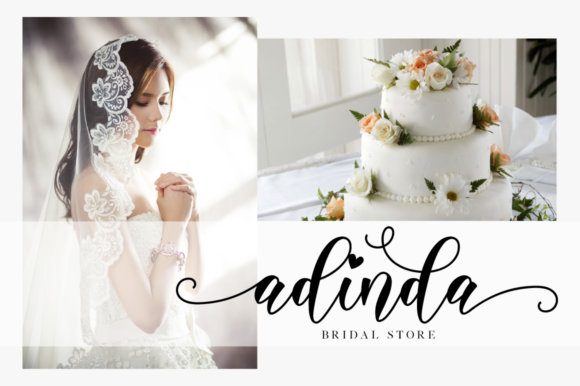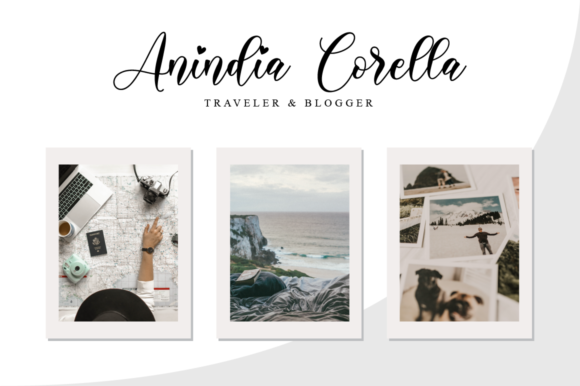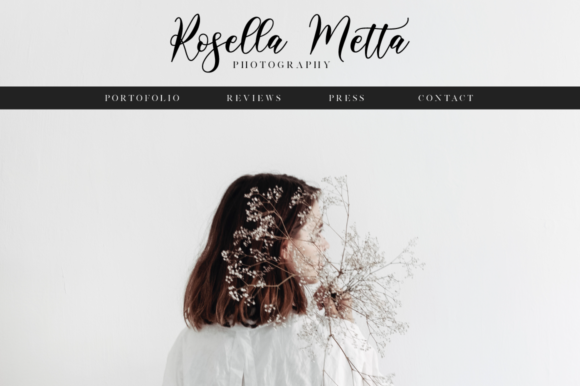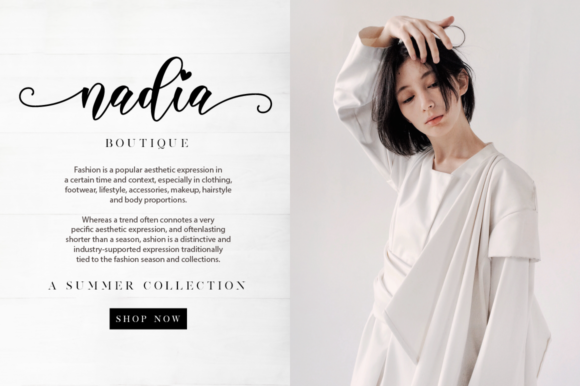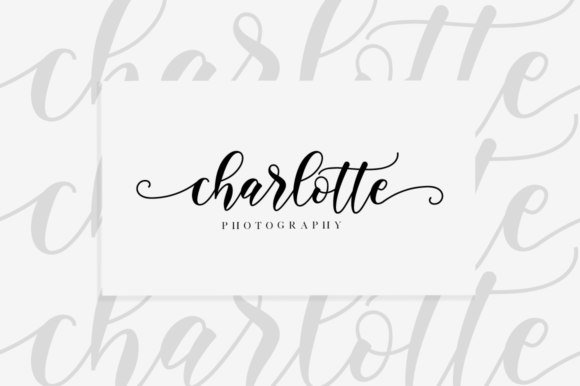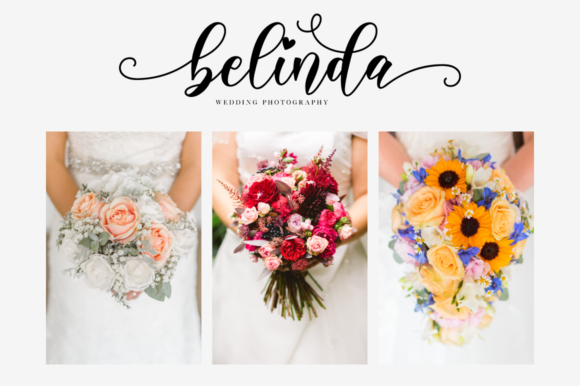
The Perfect Script for Your Next Design Project
As designers, we’ve all been there – staring at a blank canvas, struggling to find the perfect font to bring our vision to life. It’s that moment when the right font can make all the difference, elevating your design from ordinary to extraordinary. For me, that moment came when I discovered the Alyanda Script Font.
This beautiful script boasts a classy, elegant, and modern look that’s perfect for adding a touch of sophistication to any design project. Whether you’re working on a wedding invitation, a branding campaign, or a website, the Alyanda Script Font is sure to turn heads. Its authentic vibe is contagious, making it a valuable addition to any designer’s toolkit.
Alyanda Script Font Key Features
- Font Style: Handwritten, Script Font
- Unique Characteristics: Features elegant, flowing lines, and subtle flair, making it perfect for creative and artistic applications
Alyanda Script Font Review
I recently had the chance to work with the Alyanda Script font, and I have to say, it’s a real showstopper! ✨ The flowing, handwritten feel of this font is perfect for adding a touch of elegance and sophistication to your designs.
The letters in Alyanda Script are beautifully connected, creating a natural flow that makes it a joy to read. ✨ The font also includes a range of ligatures and alternate characters, which can add an extra layer of depth and interest to your typography.
While Alyanda Script is a beautiful font, it’s not without its limitations. ⚠️ Here are a few things to consider:
The font can be quite large, which may make it difficult to read at smaller sizes.
The connected nature of the letters can make it challenging to edit individual characters.
The font may not be suitable for use in digital applications where legibility is a top priority.
Overall, I’m really impressed with the Alyanda Script font. ✨ While it may have some limitations, its unique and elegant feel makes it a great choice for designers looking to add a touch of sophistication to their projects.
Alyanda Script Font is ideal for creating elegant and sophisticated designs. To get the most out of it, try:
- Pairing it with a bold or sans-serif font for contrast.
- Using it in titles or headings to add a touch of elegance.
- Experimenting with different font sizes and styles to create visual interest.
Alyanda Script Font is perfect for:
- Event promotions
Great Vibes is a beautiful, elegant script font that is perfect for creating a sophisticated and luxurious feel in designs. It features flowing connections and subtle flair, making it ideal for use in logos, branding, and invitations.
Compared to Alyanda Script Font, Great Vibes has a more refined and polished look, with more consistent line widths and a more even flow.
Pacifico is a modern script font that is characterized by its relaxed, casual feel and elegant lines. It is perfect for use in designs that require a sense of warmth and approachability, such as in packaging, advertising, and social media graphics.
Compared to Alyanda Script Font, Pacifico has a more laid-back and casual feel, with a more varied line width and a more relaxed flow.
Carolyna Pro is a elegant script font that is perfect for creating a sophisticated and luxurious feel in designs. It features flowing connections and subtle flair, making it ideal for use in logos, branding, and invitations.
Compared to Alyanda Script Font, Carolyna Pro has a more refined and polished look, with more consistent line widths and a more even flow. It also has a more feminine and elegant feel, making it perfect for use in designs that require a touch of sophistication.